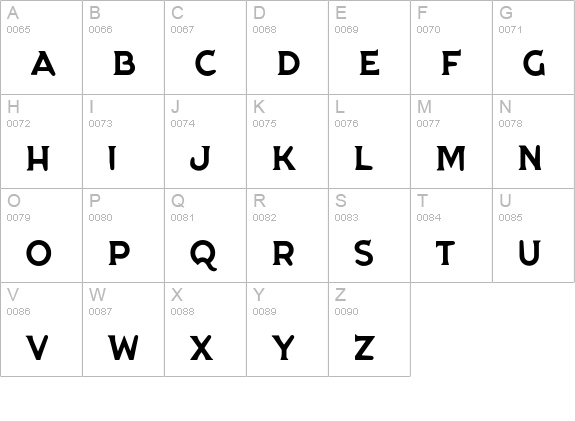
Utility57-BGauge Font Details
Utility57-BGauge is a modern and sleek font that is perfect for adding a touch of sophistication to any design project. With its clean lines and bold letterforms, this font exudes a sense of professionalism and elegance. Designed with versatility in mind, Utility57-BGauge is suitable for a wide range of applications, from branding and logos to advertising materials and product packaging. Its legibility and readability make it a reliable choice for both print and digital media. One of the standout features of Utility57-BGauge is its availability for free download at FontsMarket.com. This means that designers and creatives can easily access and utilize this font without any cost. With its high-quality design and free availability, Utility57-BGauge offers a great opportunity for designers to enhance their projects without breaking the bank. Whether you're working on a professional project or simply looking to add a touch of style to personal designs, Utility57-BGauge is a font that shouldn't be overlooked. Its sleek and modern aesthetic, combined with its accessibility and versatility, make it a valuable addition to any designer's toolkit. Get your hands on this free font today at FontsMarket.com and elevate your designs to new heights.